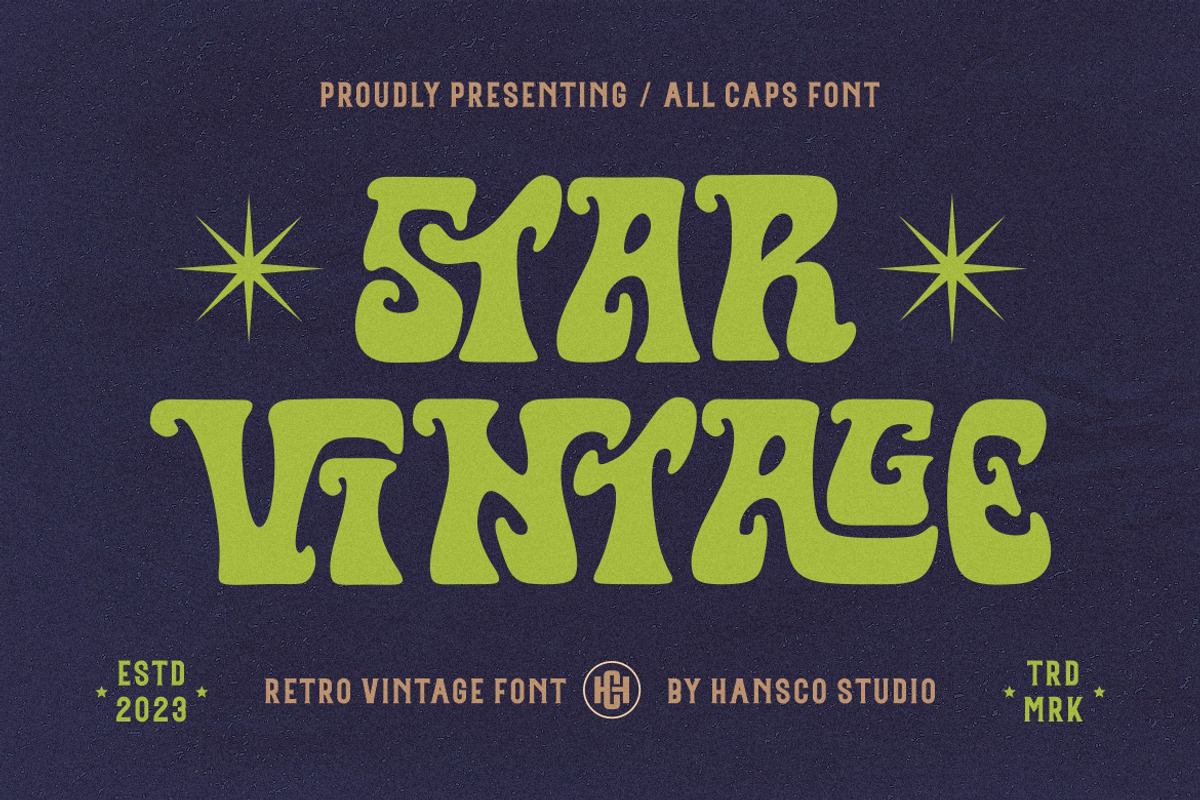
Star Vintage Font Free Download
Please note, you must purchase this font for commercial use. However, you can easily download Star Vintage Font Free Download for personal use and testing purposes. Star Vintage Font is a classic, retro-inspired typeface designed to evoke the charm of old-school typography. Perfect for vintage-themed projects, logos, posters, branding, and more, this font adds a touch of nostalgia to any design. With its bold, distinctive letterforms, Star Vintage Font Free Download is ideal for projects that require a timeless, classic aesthetic. Whether you're creating a vintage brand identity, a retro event poster, or an old-school logo, this font brings a unique, historical appeal to your work. Download Star Vintage Font Free Download today and explore its potential before opting for a commercial license.